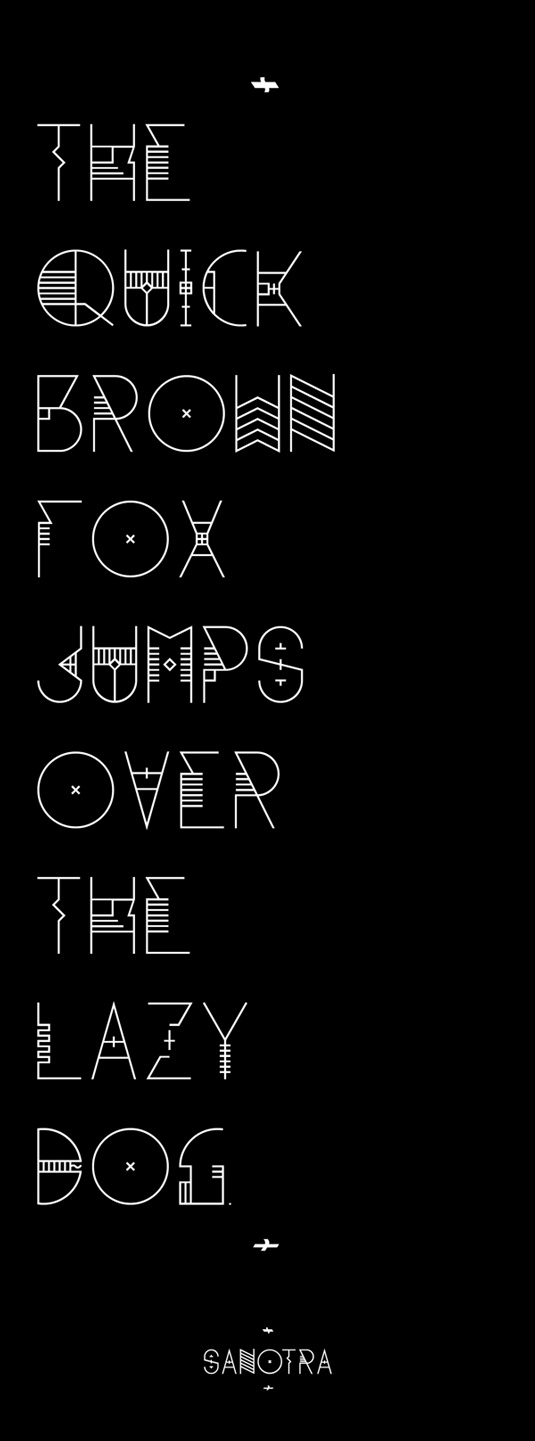
Font of the day - Sanotra
Every day we showcase the best fonts on the web. Today it's Sanotra by Emraan Mayow - which is totally FREE to download!
Sanotra by Emraan Mayow
Today's funky typeface Sanotra was created by 18-year-old graphic design student Emraan Mayow. "Sanotra is a font exploring the shape and form of type," he explains.